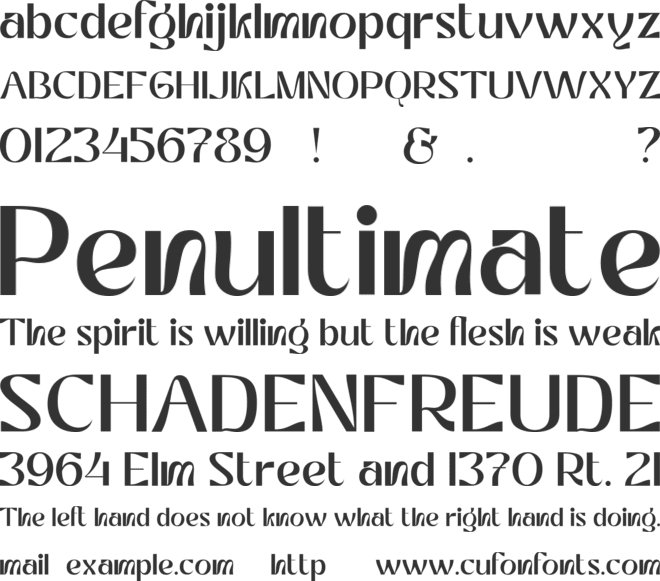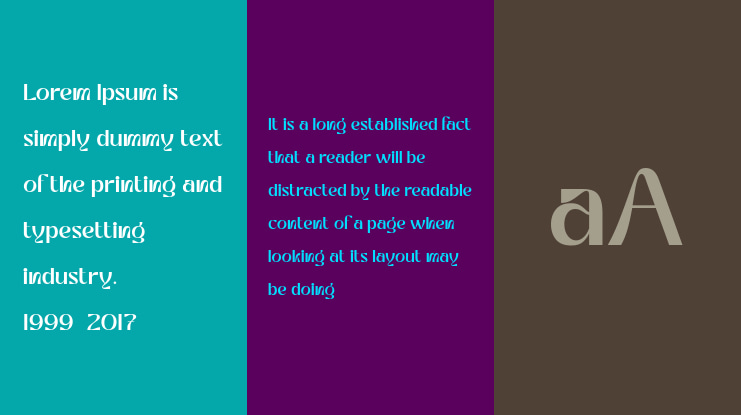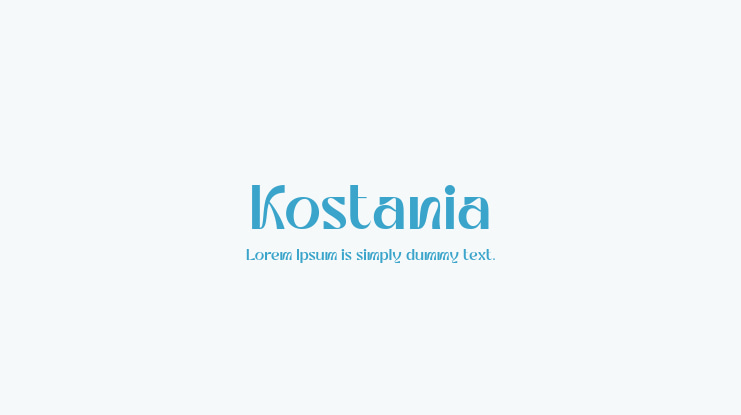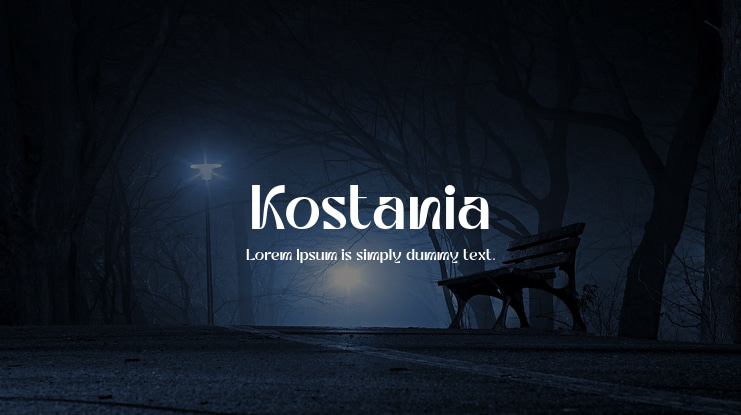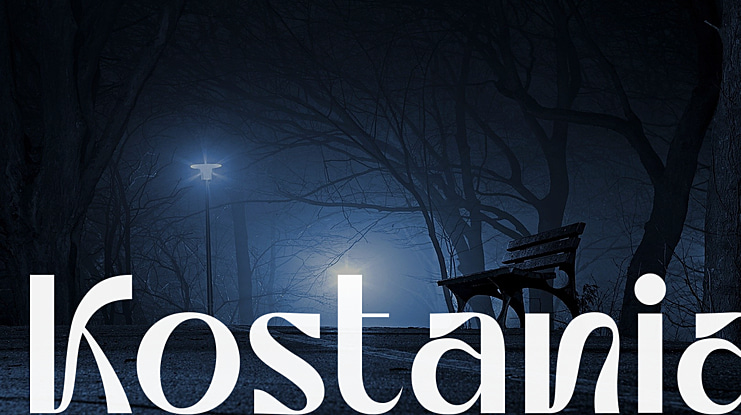
Kostania Font
This is a beautiful and elegant sans serif typeface crafted & designed by Ekahermawan. Incredibly trendy and versatile. Kostania is including a bunch of alternates and ligatures characters that give you a variety of typographic design results. Kostania is a versatile font for many design project such as logo design, branding, poster, magazines, labels, merchandise, invitation, presentation, advertising and so much more!